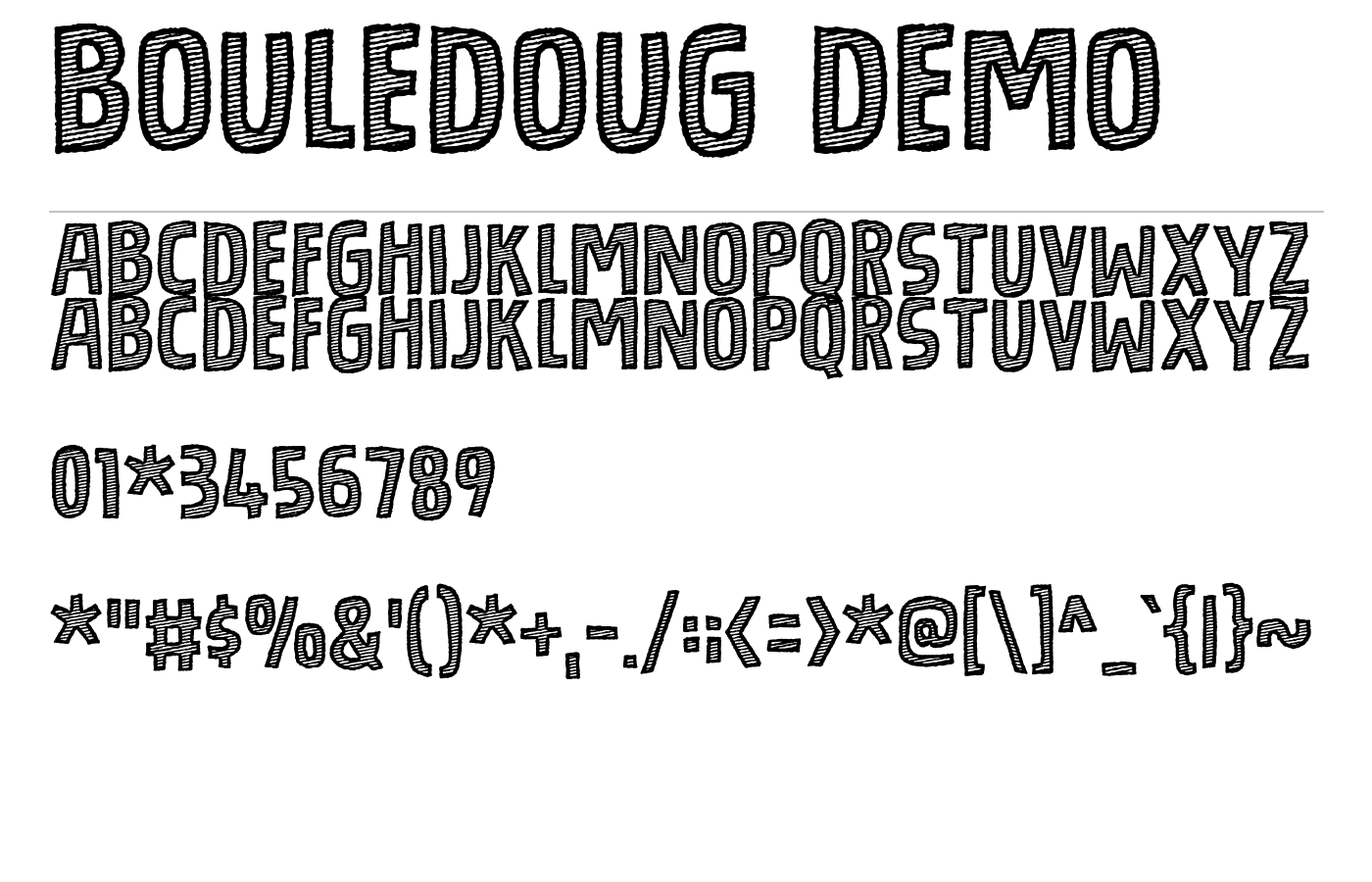
Bouledoug DEMO is a bold, hand-drawn sans serif font with a playful and textured look created by its hatched shading inside thick, condensed letterforms. Its quirky, casual style brings a sense of fun and personality, making it a great choice for creative branding, posters, and informal headlines where a lively, handcrafted vibe is desired. The font's strong presence and distinctive texture ensure it stands out while maintaining readability.
Bouledoug DEMO Font
About Bouledoug DEMO Font